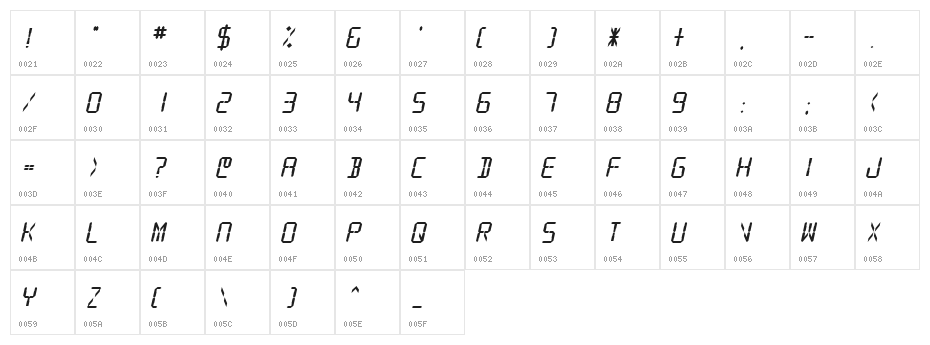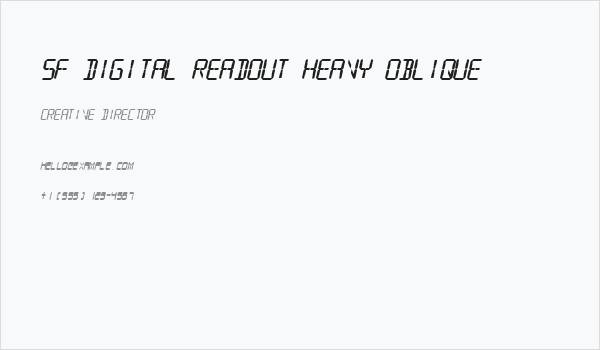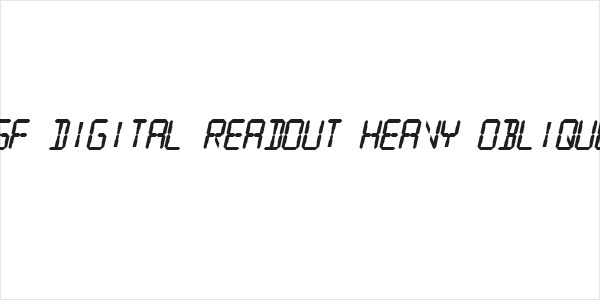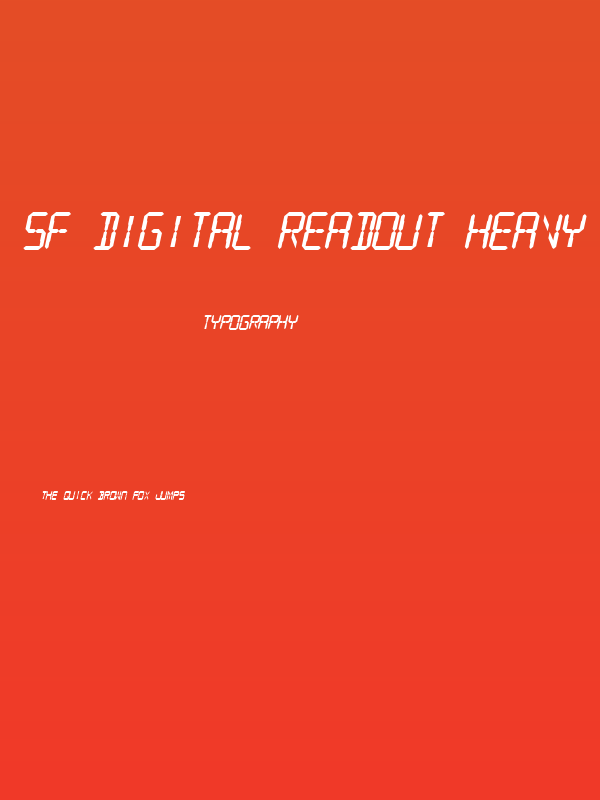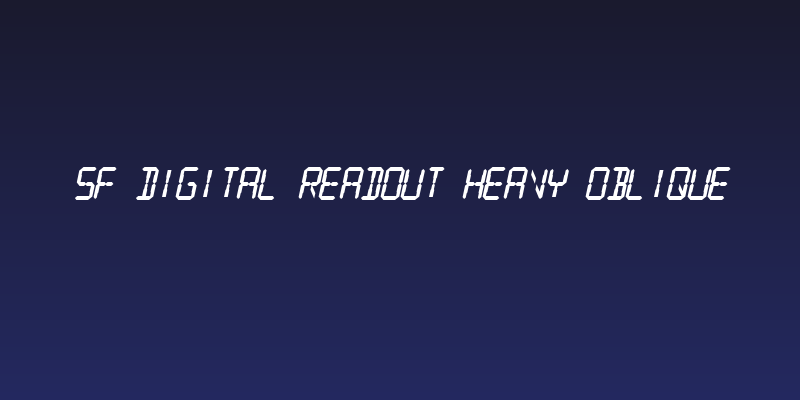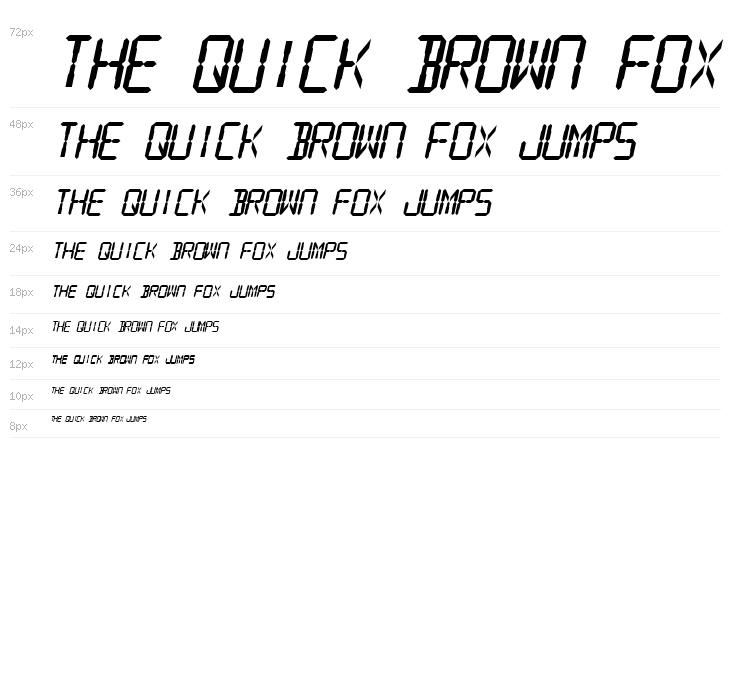
SF Digital Readout Heavy Oblique Font
SF Digital Readout Heavy Oblique Description
This font features a digital, futuristic style with a heavy oblique slant, reminiscent of old digital displays or LED screens. The characters are composed of segmented lines, giving them a geometric and technical appearance. The uppercase and lowercase letters maintain a consistent style, with sharp angles and a uniform stroke width that suggests a mechanical precision. Numbers and special characters follow the same segmented design, ensuring a cohesive look across all glyphs. The font's boldness and oblique nature make it stand out, ideal for capturing attention in digital or tech-themed projects.
| Overall Style | Futuristic, Digital |
| Use Case | Headlines, Logos, Digital displays |
| Proposed Projects | Ideal for digital displays, tech-themed designs, video game interfaces, and futuristic branding. |